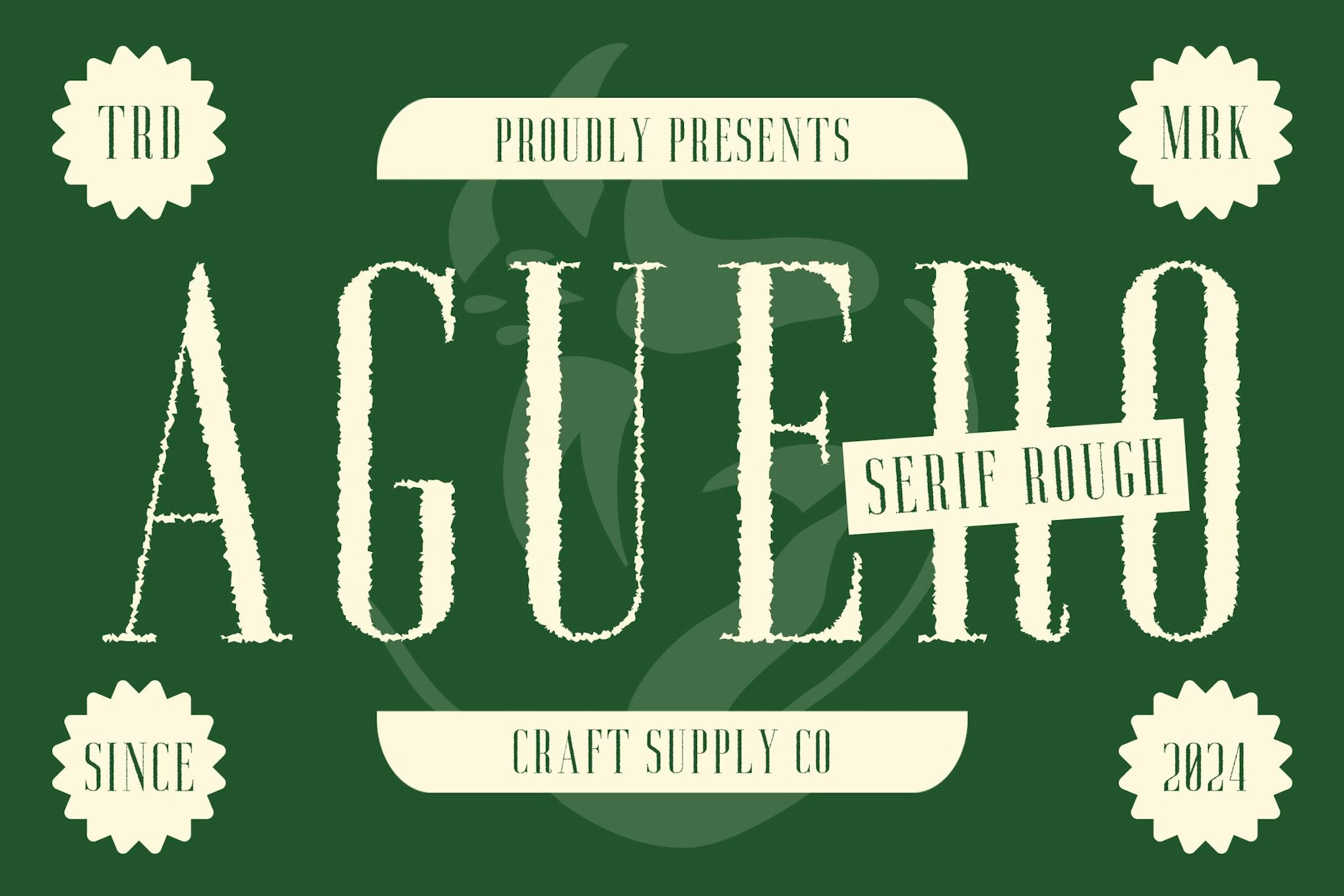
Aguero Serif Rough Font
Aguero Serif Rough Font Free Download offers a powerful fusion of timeless serif elegance and a rugged, authentic texture. For commercial use, you must purchase this font, but you can download it for free for testing purposes. This versatile typeface is perfect for a wide range of creative projects, including vintage branding, rustic logos, product packaging, t-shirt designs, and editorial layouts. What makes this font so exciting is its unique ability to blend classic sophistication with a genuine, distressed feel, creating a look that is both refined and full of character. The Aguero Serif Rough font family includes a range of styles, such as Regular Rough, Bold Rough, and a complementary clean version, providing a complete and flexible design solution.
This isn’t just a font; it’s a character piece. The design of Aguero Serif Rough is inspired by a blend of classic typography and old-school printing techniques, with its gritty texture and elegant serifs. Its distinctive look ensures that your headlines and titles will be both memorable and highly impactful. Whether you’re a designer creating branding for an artisanal product, a logo for a craft brewery, or a poster for a vintage event, this font provides the perfect foundation. The distressed look adds a layer of genuine authenticity that makes your work feel real, worn-in, and full of personality.
The versatility of the Aguero Serif Rough family is one of its greatest strengths. You can use the rough styles to create a weathered, vintage effect for headlines, or switch to the clean version for a more polished yet still impactful look in supporting text. This combination allows for dynamic and layered designs that maintain a cohesive visual identity. Each character has been meticulously crafted to ensure that the distressed effect is both realistic and visually appealing, without compromising on readability. It's a font that works hard, delivering a look that is both rugged and refined, making it a valuable asset for any designer.
For those ready to infuse their work with a touch of authentic, old-world charm, Aguero Serif Rough Font Free Download is an excellent opportunity to explore its capabilities. Try it out on your personal projects to see how its distinctive style transforms your designs. When you’re ready to use its powerful aesthetic for commercial purposes, a simple purchase will grant you the full license, allowing you to use this typeface without limitation. Embrace the rugged elegance and let this font bring your creative visions to life.